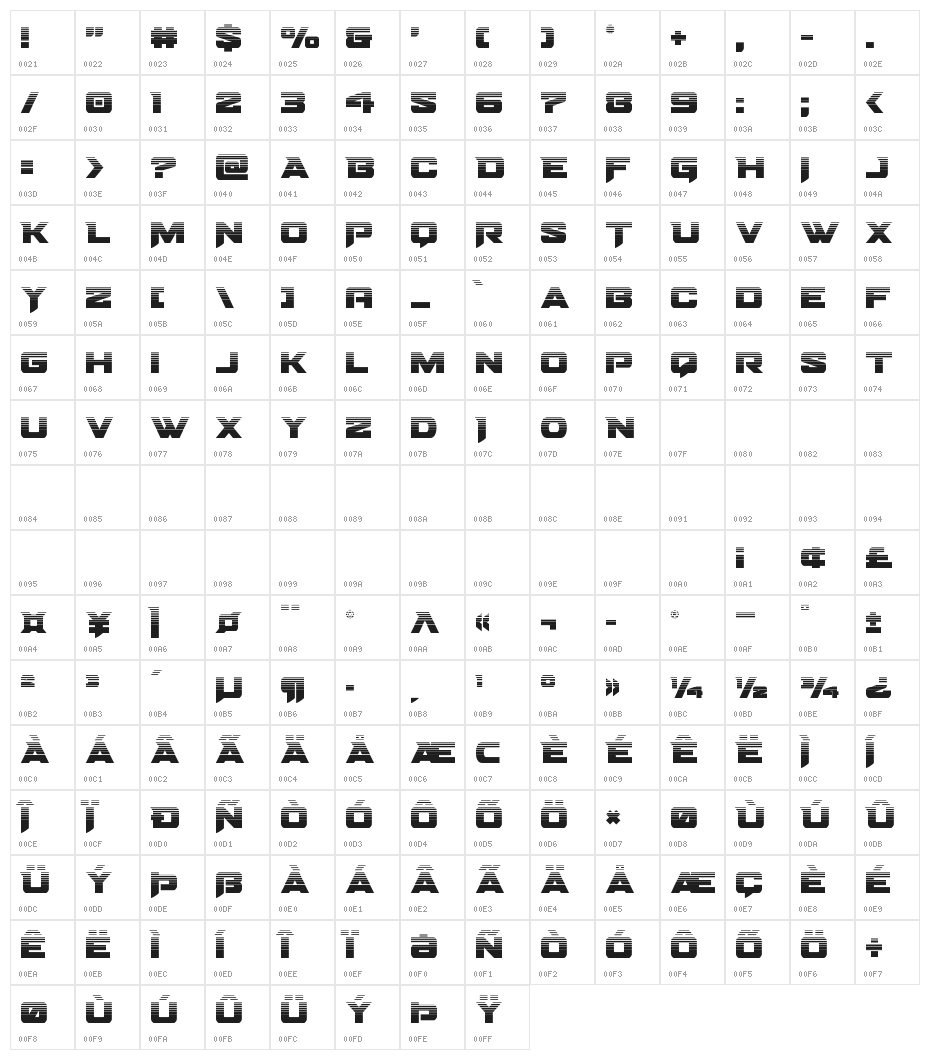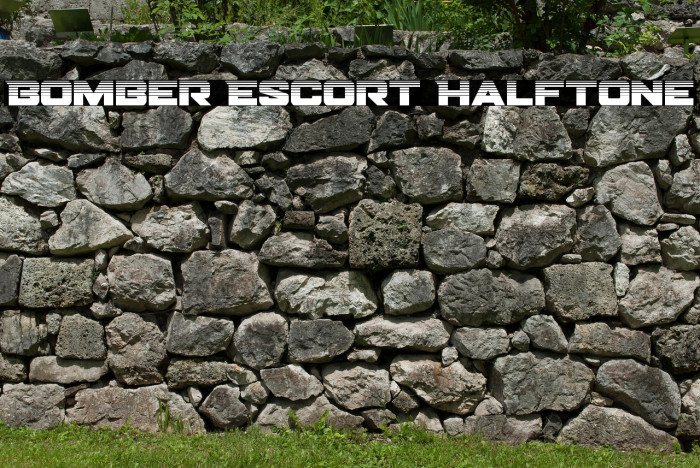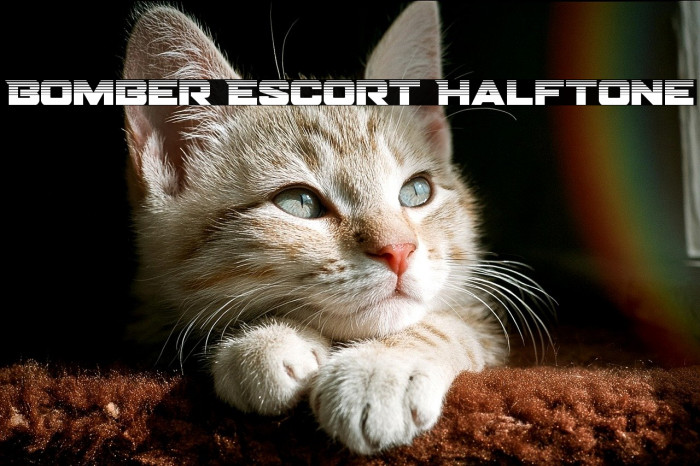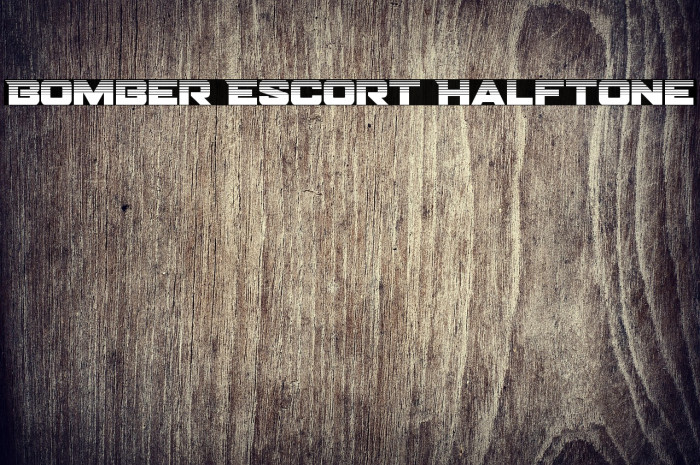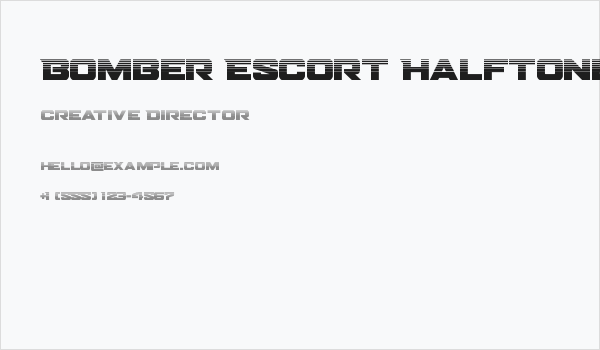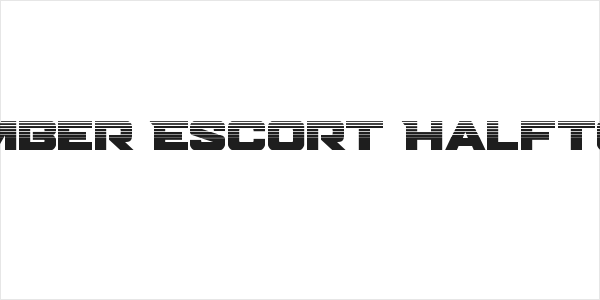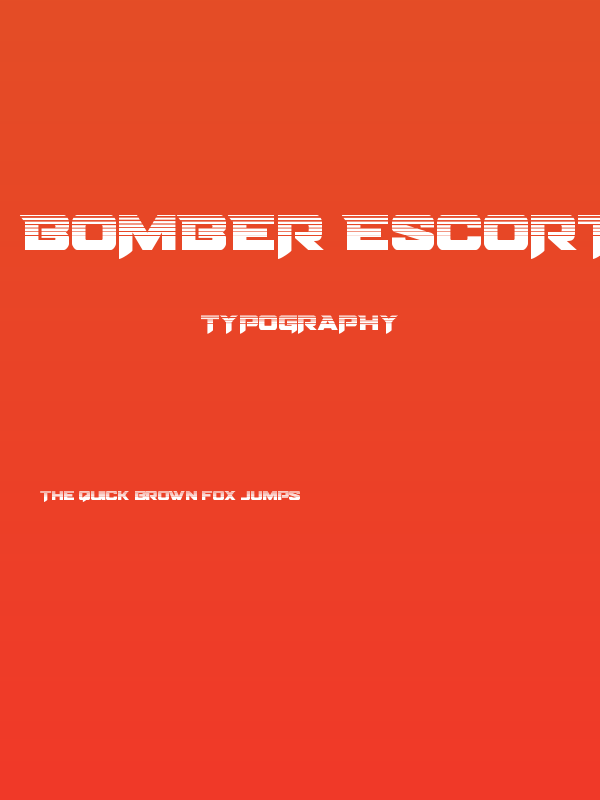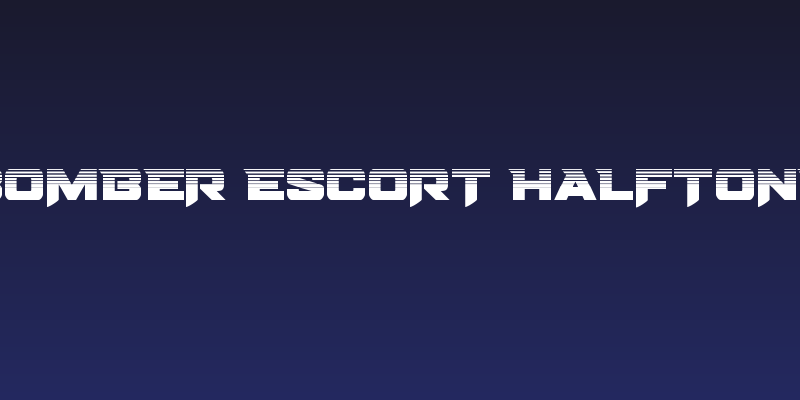
Bomber Escort Halftone Font
Bomber Escort Halftone Description
This font features a bold, futuristic design with a halftone effect that gives it a dynamic, high-tech appearance. The characters are constructed with a series of horizontal lines that create a sense of movement and energy. The uppercase letters are particularly striking, with sharp angles and a solid, impactful presence. The numbers and special characters maintain this bold style, ensuring consistency across all elements. This font is well-suited for projects that require a modern, edgy look, such as technology branding, video game titles, or sci-fi themed designs.
| Proposed Projects | Ideal for technology branding, video game titles, sci-fi themes, and modern posters. |